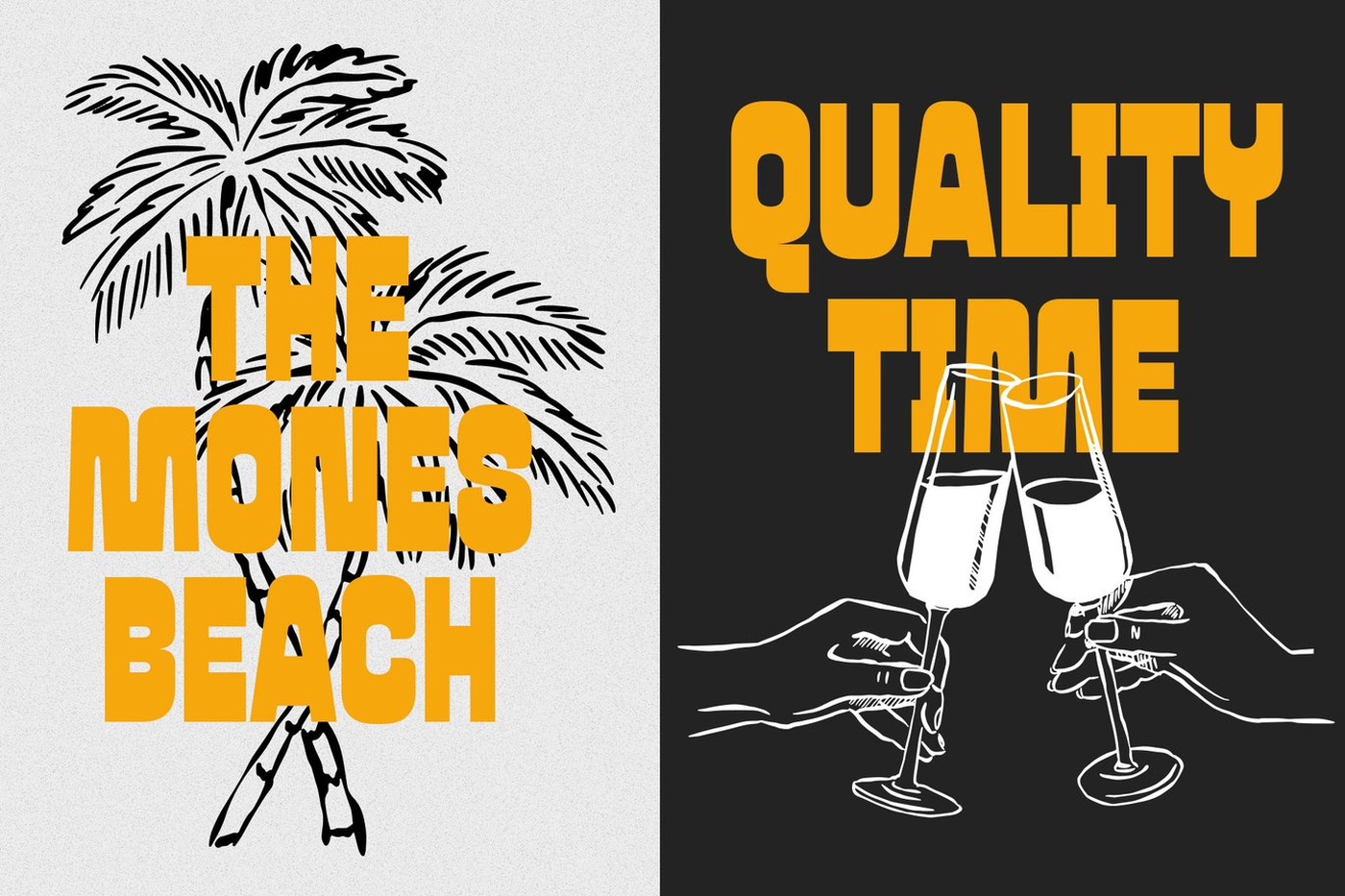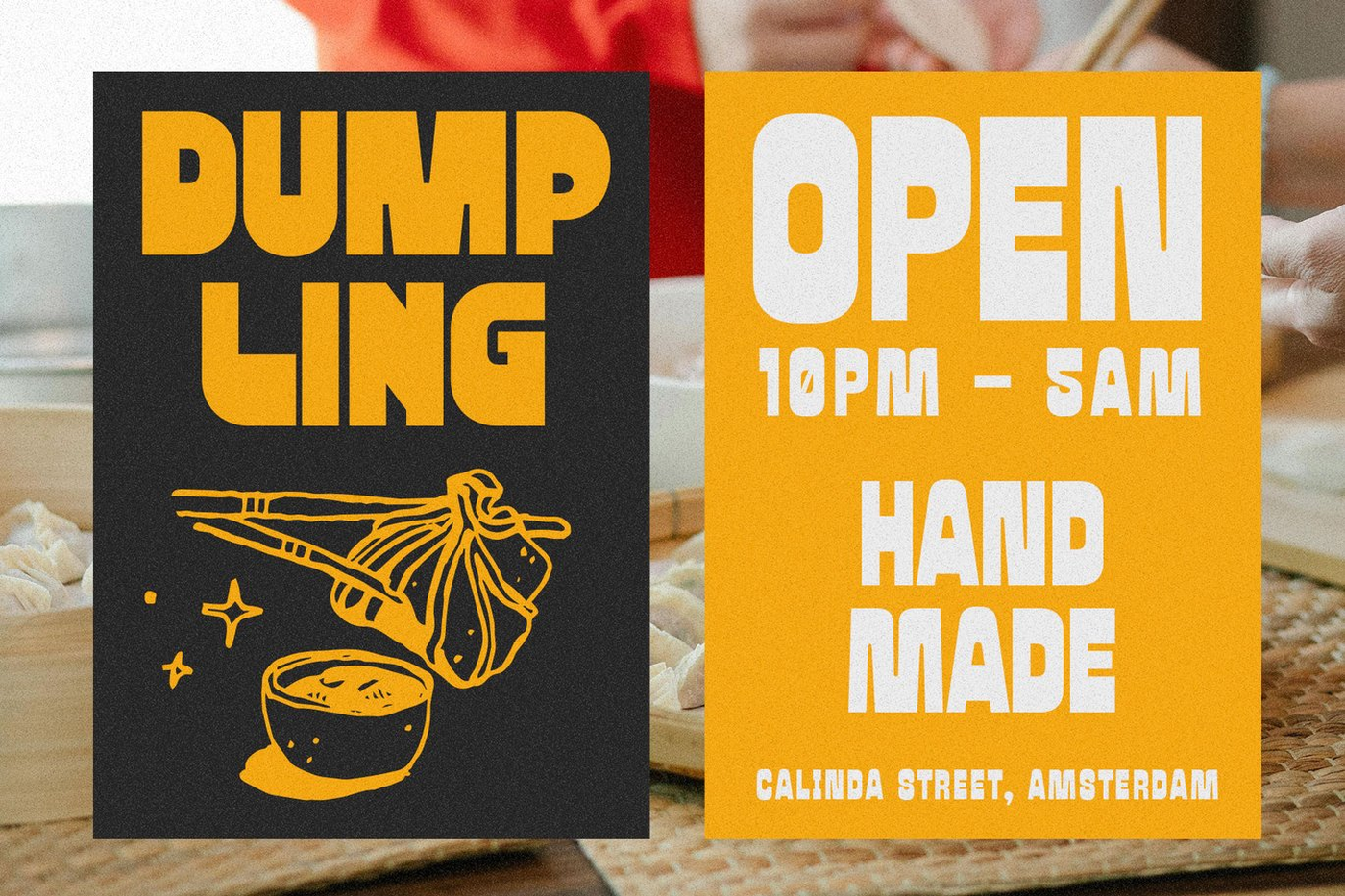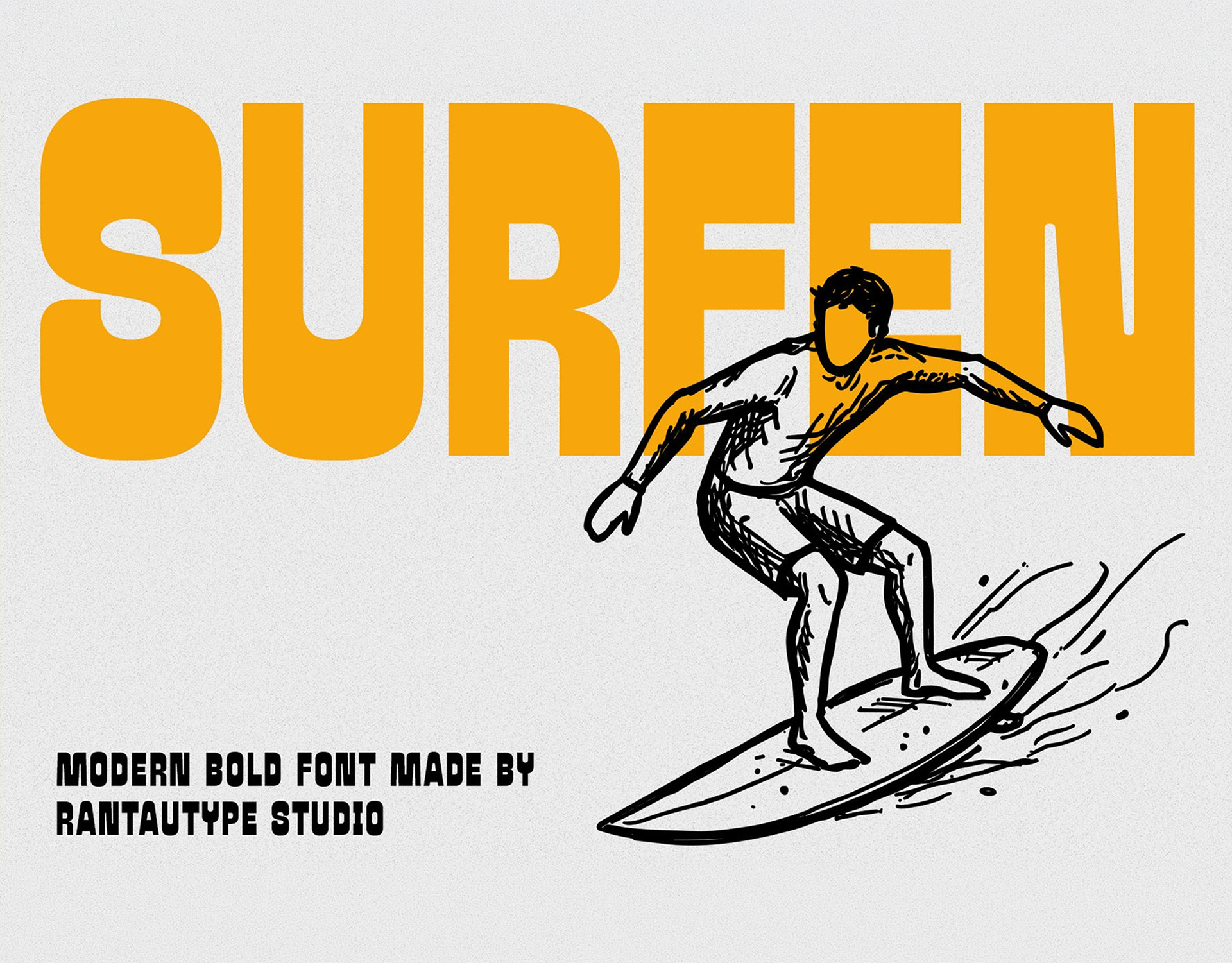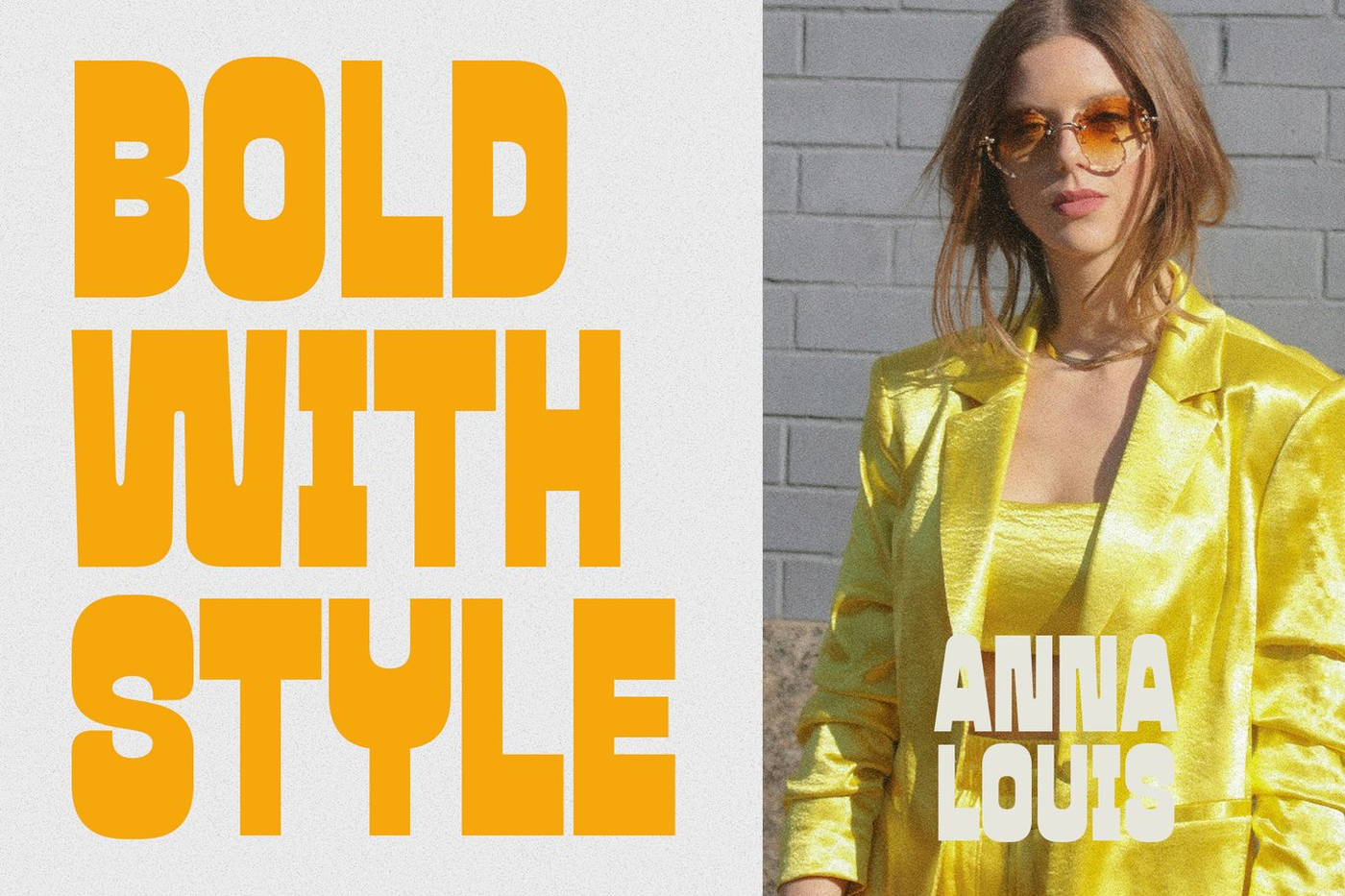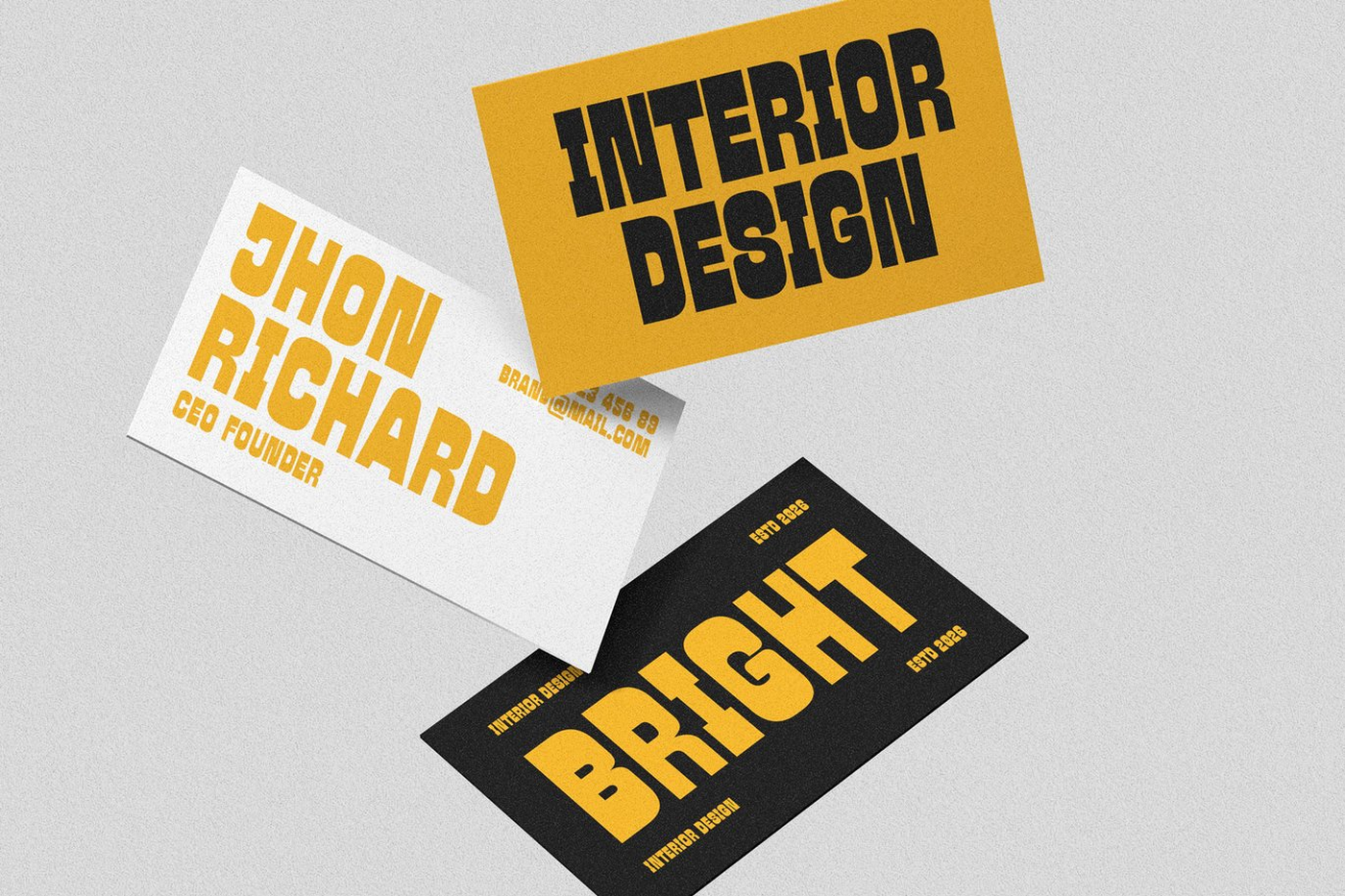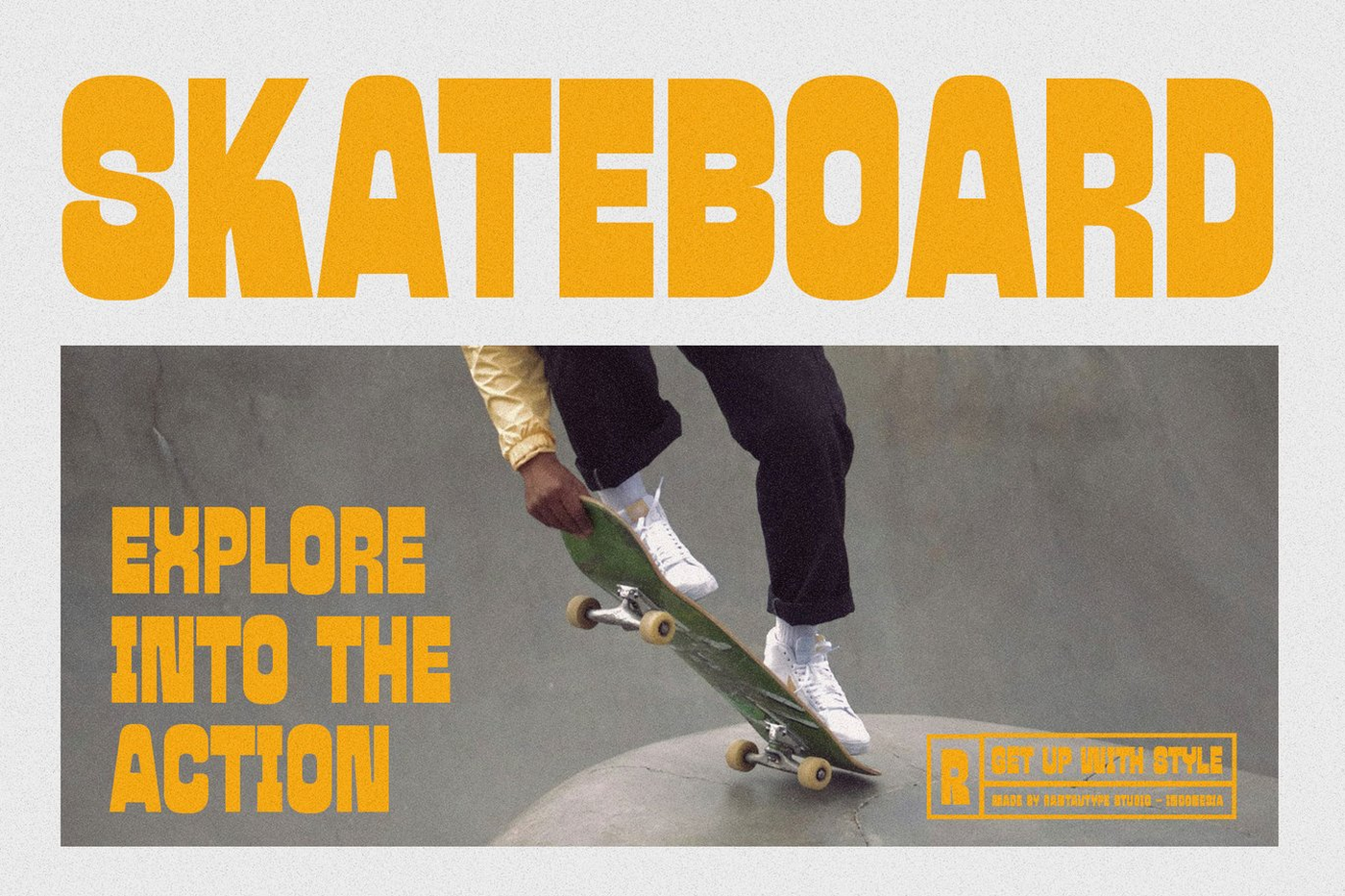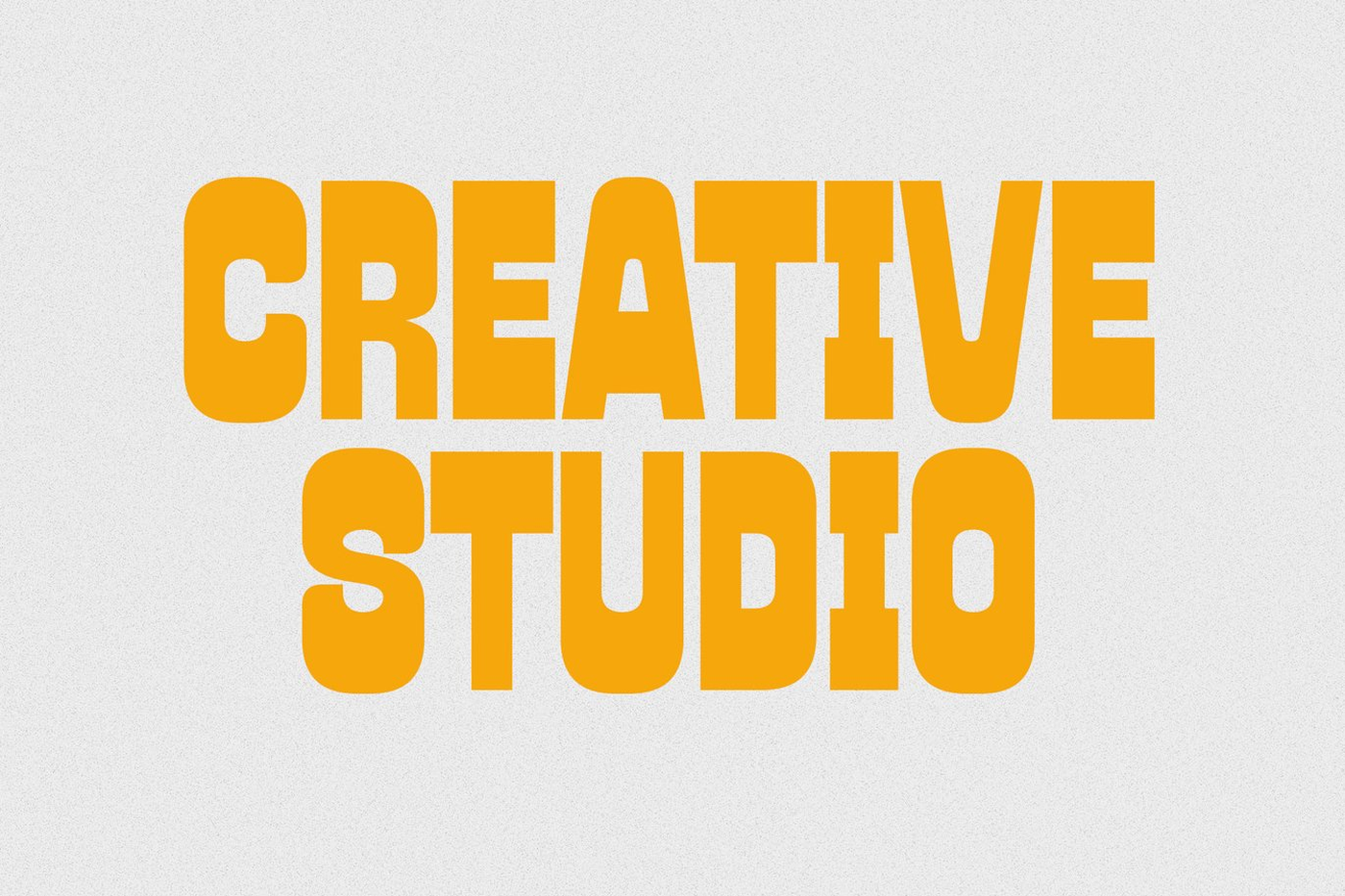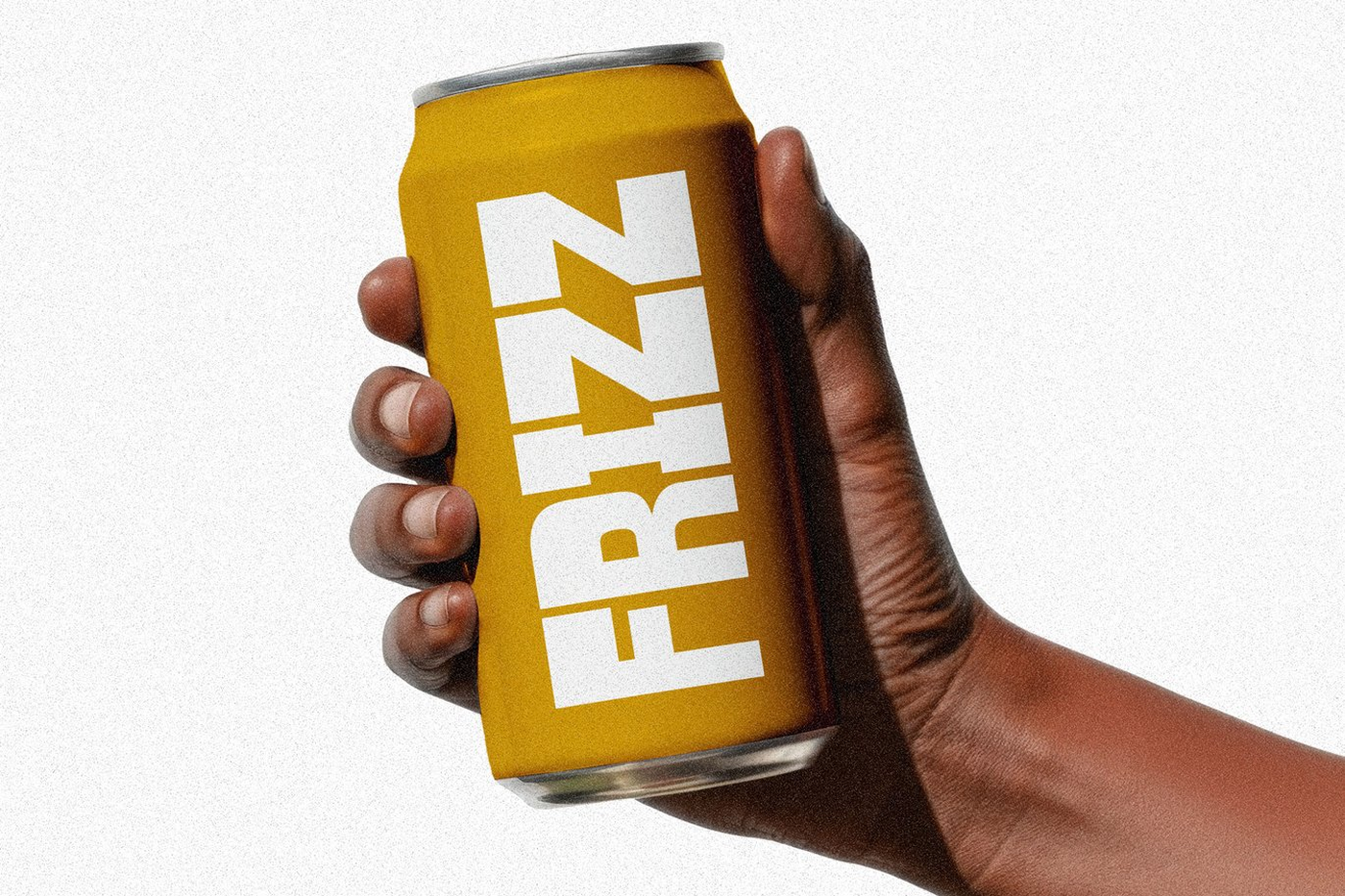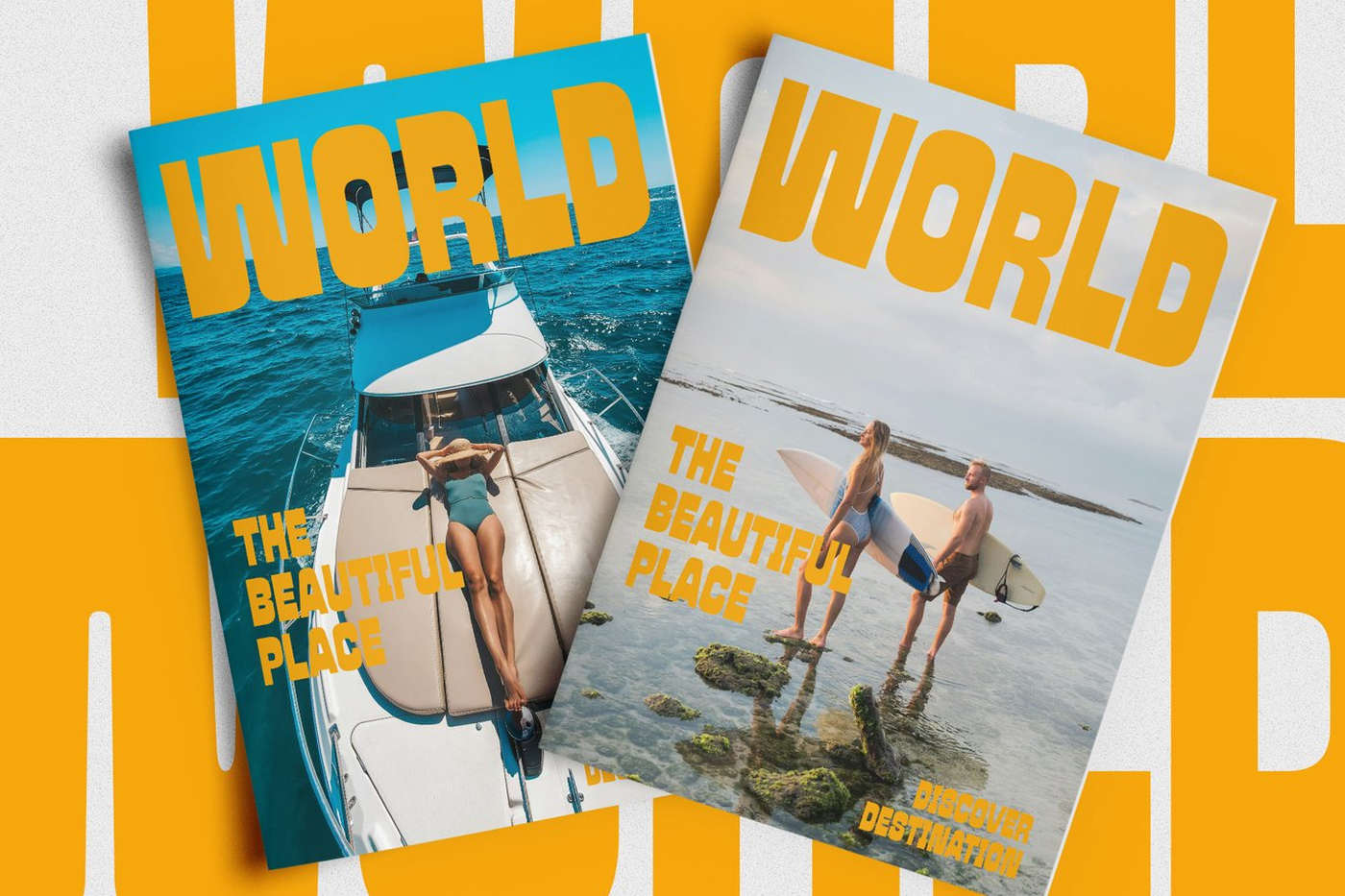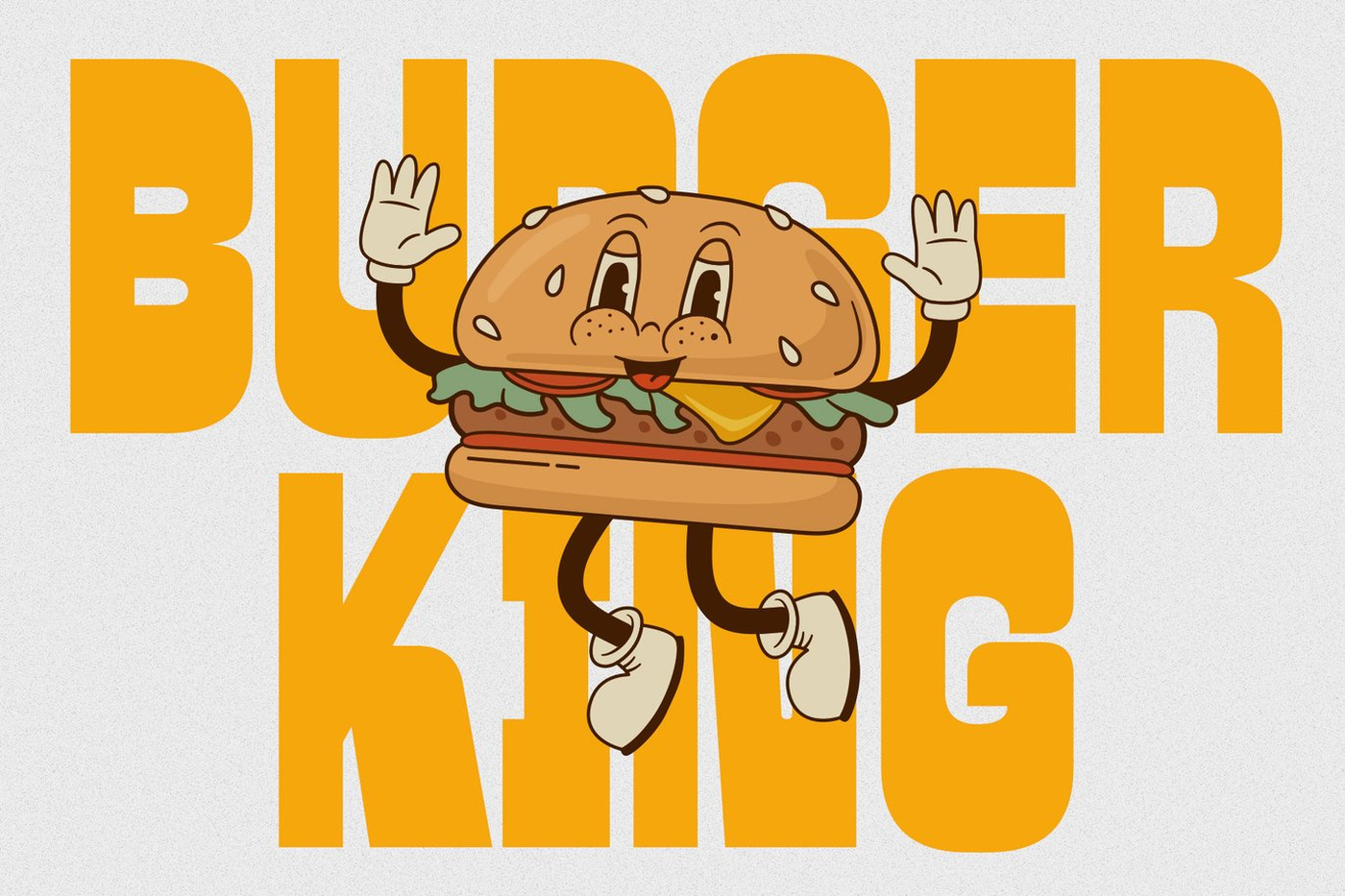
Surfen - Modern Bold Font
Surfen is modern font with confident structure, and strong presence, this type of font is perfect for designs that aim to capture attention instantly. Surfen come with simplicity and strength, creating typography that feels both stylish and highly readable across various design applications. Surfen is a perfectly choice for any creative endeavor, creating, modern, lifestyle design such as logotype, title, cover, branding, invitations, wedding designs, display and magazine, social media posts, advertisements, printed quotes, product packaging, corporate brand, product designs, labels, photography, watermarks, special events and any other project with mdoern touch.
Font: Surfen